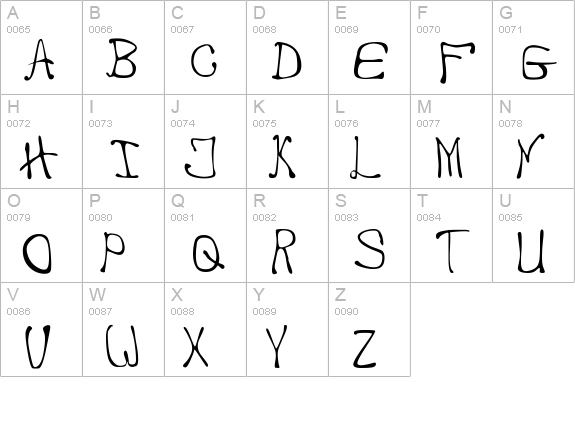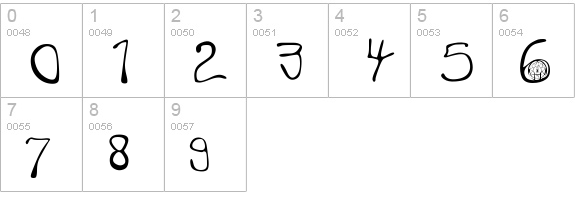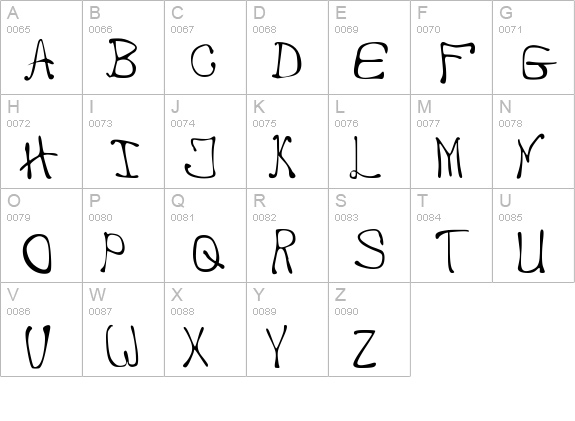
my handwriting Font Details
Introducing the captivating and unique handwriting font, designed to add a touch of personality and charm to your projects. With its fluid strokes and elegant curves, this font exudes a sense of creativity and individuality. Whether you're creating invitations, logos, or social media graphics, this font will effortlessly elevate your designs with its handcrafted feel. Best of all, this stunning handwriting font is completely free for personal and commercial use. You can easily download it at FontsMarket.com and start using it in your projects right away. Don't miss this opportunity to enhance your designs with this beautiful and versatile font. Let your creativity shine with this free handwriting font, available now at FontsMarket.com.